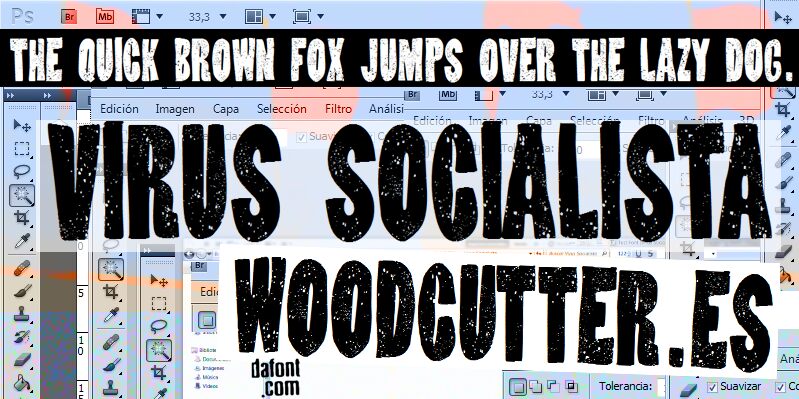
Virus Socialista
Virus Socialista, a bold and eroded display font by Woodcutter, exudes a rebellious spirit. Its rugged edges and distressed appearance make it perfect for projects that demand an edgy and grungy vibe.
With its extra-condensed width, this typeface is ideal for headlines in music posters or album covers, conveying the raw energy of rock or punk. It also adds a distinct touch to urban-themed designs like graffiti art or skateboarding magazines.
Virus Socialista infuses your projects with an infectious sense of rebellion and authenticity that cannot be ignored.
Virus Socialista.